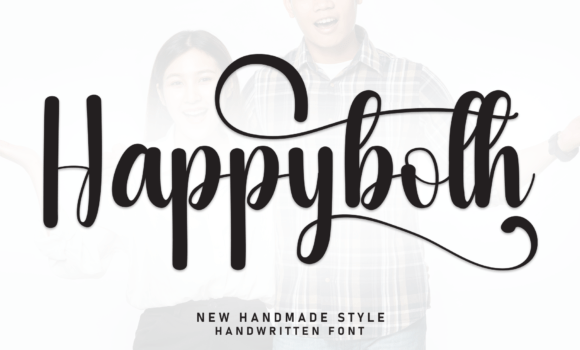
Happyboth Font – Free Download Introduction to Happyboth Font Happyboth is a sweet and friendly handwritten display font. 📸 Preview Gallery 6 images 📌 Product Name Happyboth Font 👤 Author william jhordy 📂 Category Explore ⬇️ Download Happyboth Font FREE